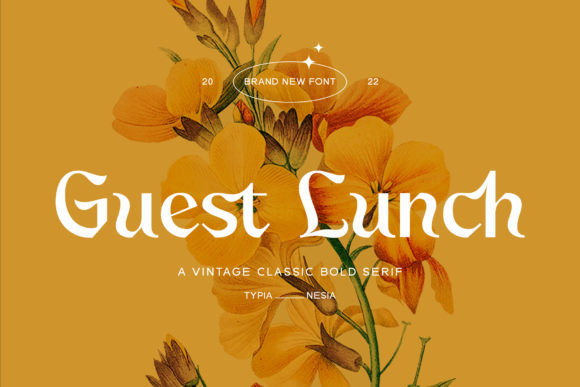
Unleash the captivating charm of Guest Lunch Serif, a serif font family that radiates timeless elegance and sophistication. Meticulously crafted by Typia Nesia, this font embodies the essence of luxury and grace, making it the perfect choice for your creative endeavors.
Embark on a journey of visual enchantment as you explore the diverse applications of Guest Lunch Serif. From luxurious logos and branding that exude an air of exclusivity to classy editorial designs that command attention, this font is your gateway to a world of refined aesthetics.
Picture the allure of a woman's magazine adorned with Guest Lunch Serif, its delicate serifs adding a touch of femininity and poise to every page. Cosmetic brands and fashion promotions will exude an aura of sophistication, while art galleries and museums will find in this font a timeless companion that captures the essence of their artistic treasures.
Boutique branding and stationery design take on a new level of elegance with Guest Lunch Serif. Its graceful curves and refined lines lend a touch of luxury to business cards, letterheads, and invitations. Blog designs and modern advertising campaigns will sparkle with a touch of sophistication, while card invitations and art quotes will leave a lasting impression on your audience.
Step into the realm of fantasy movies and games, where Guest Lunch Serif becomes a powerful narrative tool. Its enchanting characters add depth and intrigue to your storytelling, while novel and book covers adorned with this font will captivate readers from the very first glance. Special events and celebrations will be forever etched in memory, thanks to the timeless beauty of Guest Lunch Serif.